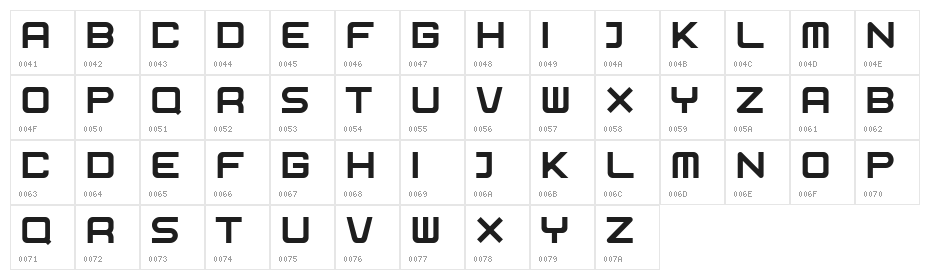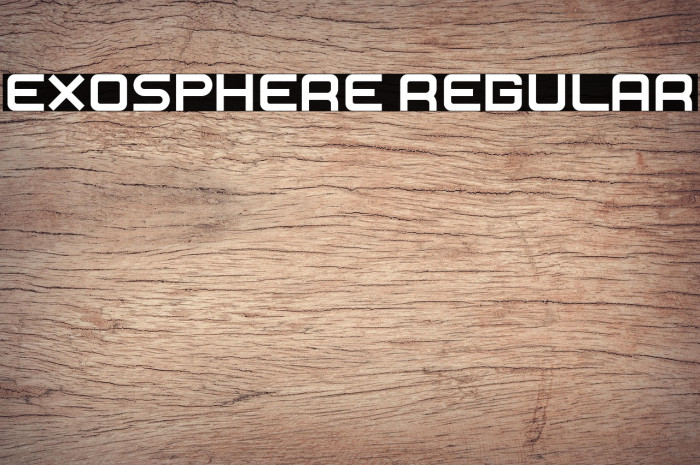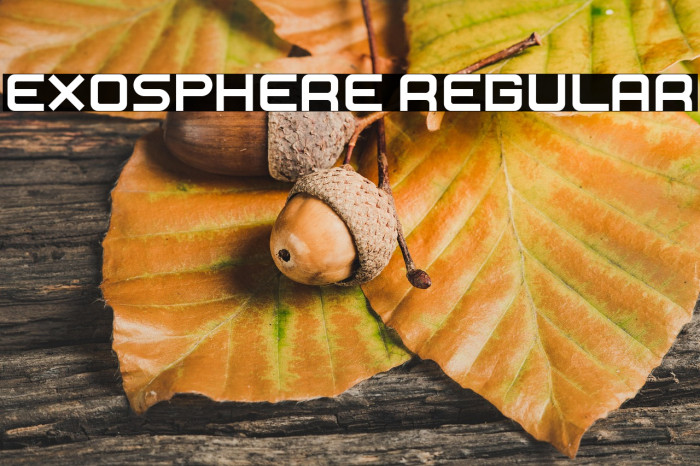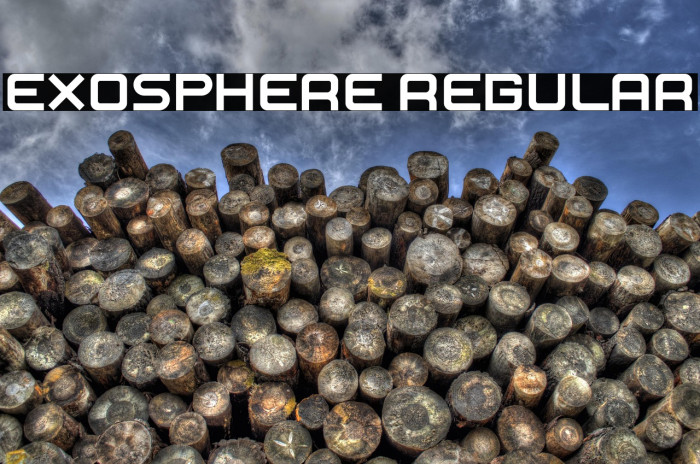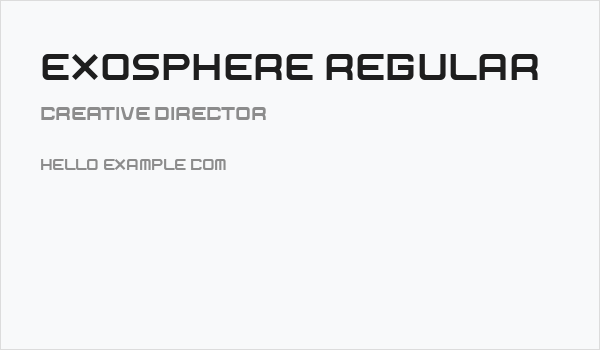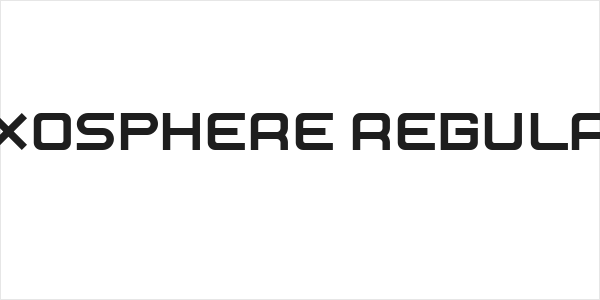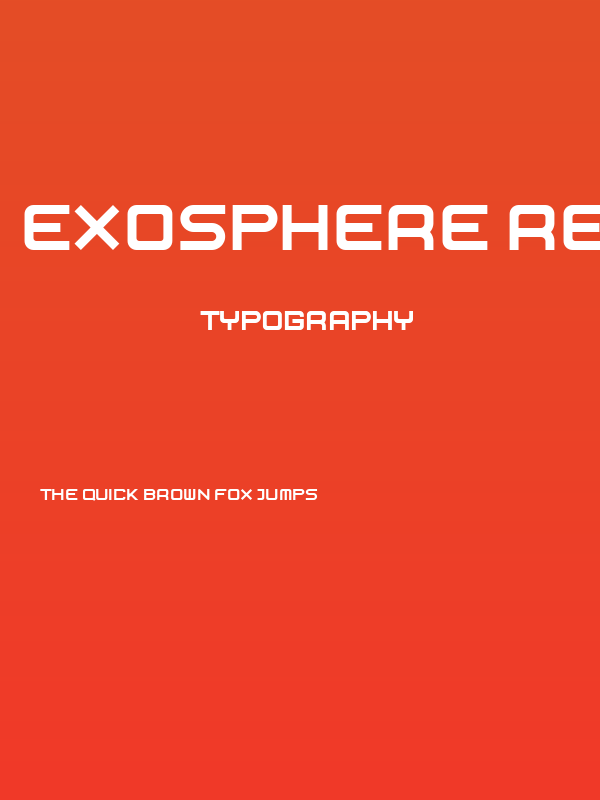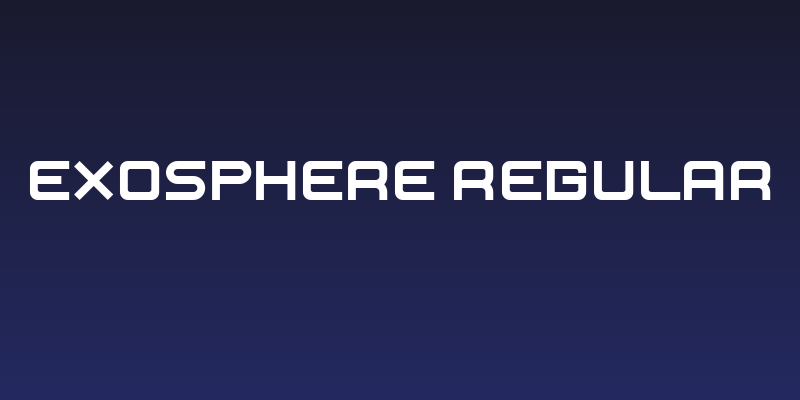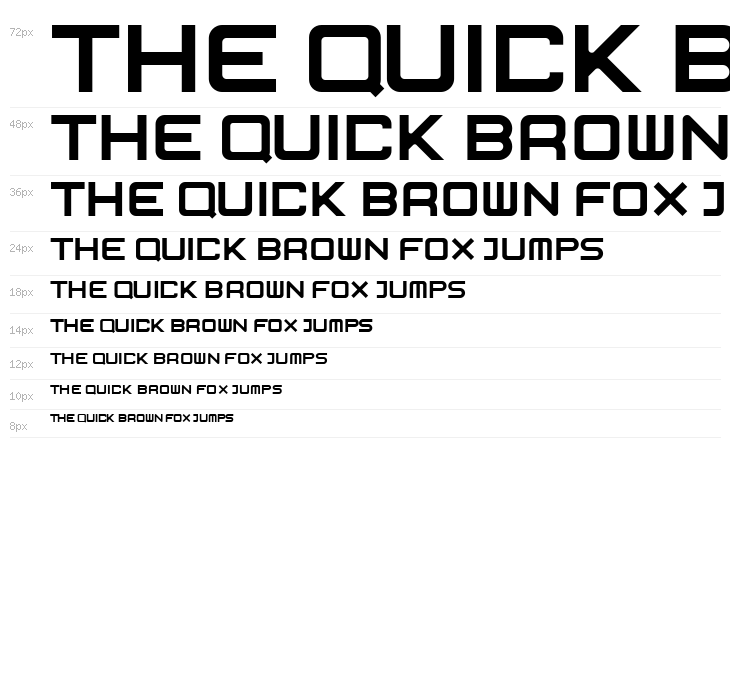
Exosphere Regular Font
Exosphere Regular Description
This font features a futuristic and geometric design, characterized by its clean lines and angular shapes. The uppercase letters are bold and structured, with a consistent height and width that convey a sense of stability and modernity. The lowercase letters maintain the geometric theme, offering a seamless blend between the two cases. The numerals are distinct and easily readable, matching the overall aesthetic of the font. Special characters are designed with the same attention to detail, ensuring they integrate well with the rest of the character set. This font is ideal for projects that require a modern, tech-inspired look.
| Use Case | Headlines, Logos, Branding |
| Proposed Projects | Ideal for technology branding, sci-fi themed designs, and modern advertising. |